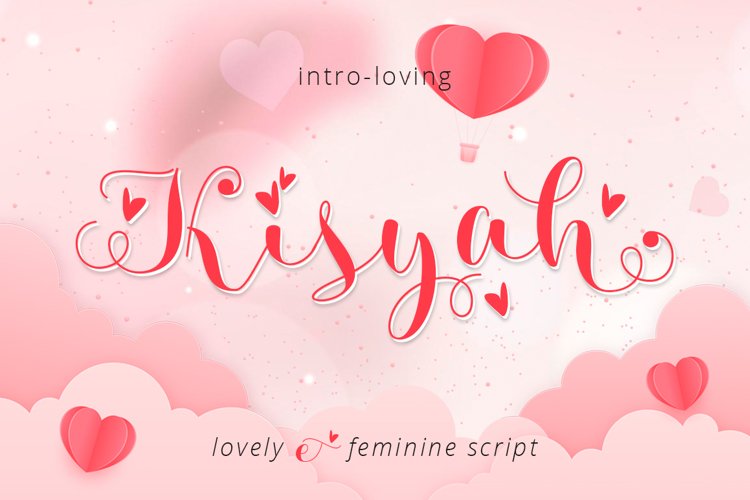
Created for LOVE.
A beautiful script that is suitable for romantic projects.
KISYAH fonts have Opentype Features that can be accessed easily with any OpenType apps.
Include in two styles. Kisyah Loved with Love icon and Kisyah Standard without love icon.